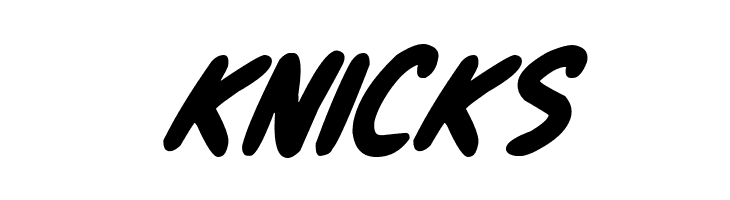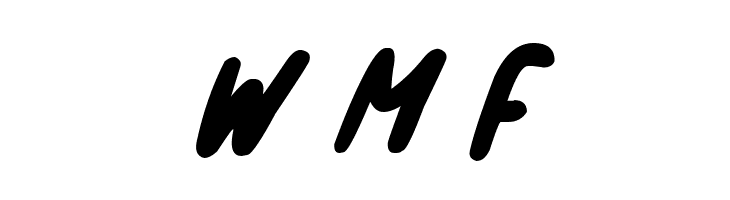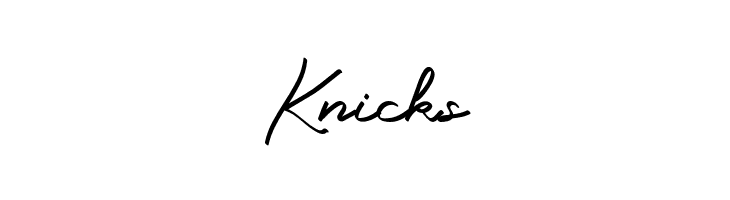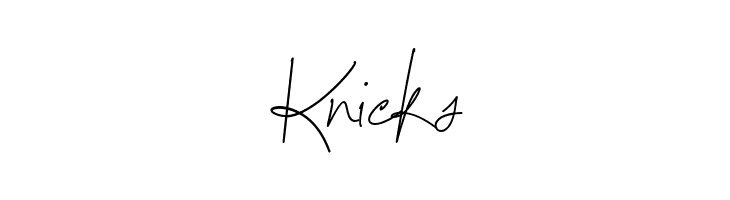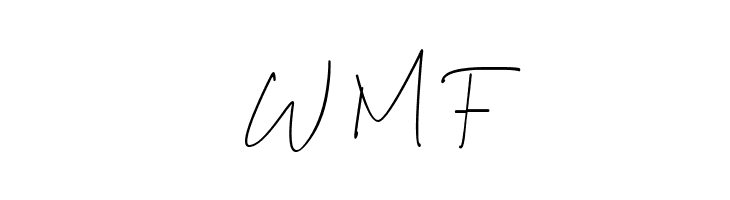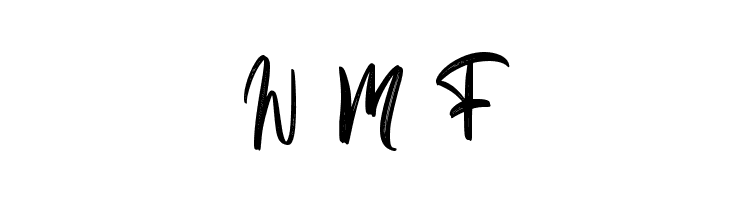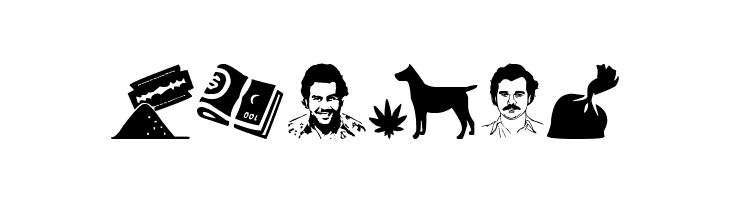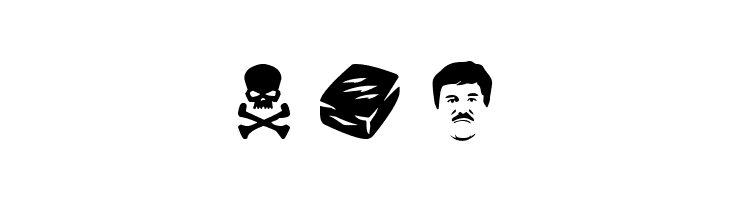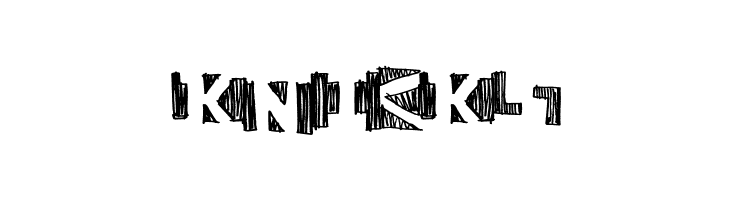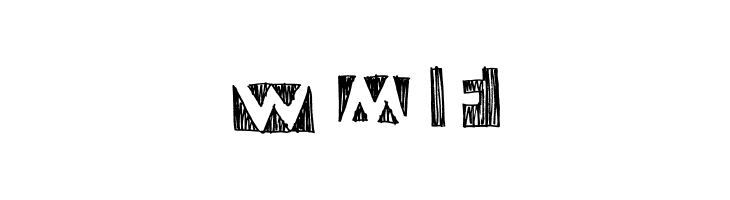
• Nakadai Oblique
A modern, oblique font with a bold, geometric style and tight spacing.
• Narco
Bold, high-contrast icon set with a narcotics and crime theme.
• Natasha Amelia
A fluid, cursive font with an elegant handwritten style.
• Natural Handwritten - Personal
A bold, natural handwritten font with expressive, fluid strokes.
• Natural Marker Italic
A bold, italicized handwritten font with a dynamic and casual feel.
• Nayla Signattures_DEMO
A fluid, elegant handwritten font with a delicate and sophisticated appearance.
• Neat Chalk
A bold, textured font with a playful, chalk-like appearance.
• neeeewwwwwwwww
• negative
A bold, decorative font with geometric shapes and intricate, hand-drawn patterns.
• Neostar
A futuristic, geometric font with bold, angular shapes and clean lines.